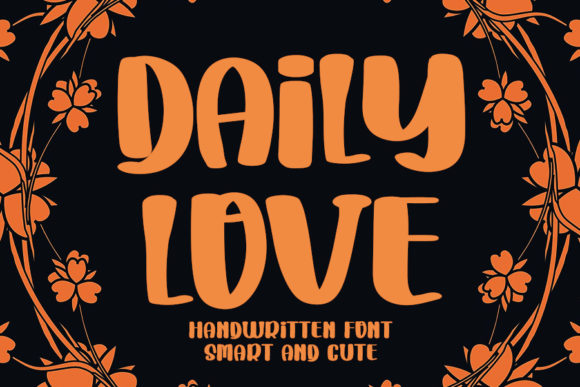
Welcome to the enthralling world of "Daily Love Font," where creativity blossoms and ideas take flight. This remarkable display font, meticulously crafted by FreshTypeINK, not only captivates the eyes but also unleashes a torrent of emotions, leaving a lasting impression on your audience.
Immerse yourself in a world of possibilities with Daily Love Font, the ultimate creative companion for your business endeavors. This font exudes elegance and sophistication, making it the perfect choice for creating professional presentations, eye-catching brochures, and impactful marketing materials that demand attention.
Unleash your imagination and embark on a journey of self-expression with Daily Love Font. Design captivating logos and branding elements that reflect the true essence of your business. Let your website radiate warmth and charm with typography that resonates with your audience, leaving a lasting impression that sets you apart from the competition.
But Daily Love Font's allure extends far beyond the realm of business. It's a font that speaks to the heart, making it ideal for crafting personal invitations, heartfelt greeting cards, and touching love letters that convey your deepest emotions in a way that words alone cannot capture.
Picture this: A heartfelt invitation adorned with Daily Love Font's gentle curves and playful shapes, promising an unforgettable event filled with joy and laughter. Or, imagine a wedding invitation that exudes elegance and romance, setting the tone for a day filled with love and happiness.
With Daily Love Font, your creative potential knows no bounds. Whether you're a seasoned designer, a budding entrepreneur, or simply someone who appreciates the beauty of typography, this font will elevate your projects to new heights. Its versatility and charm make it a must-have in any font collection, ready to transform your ideas into breathtaking realities.
So, embrace the magic of Daily Love Font today, and let your creativity soar. Experience the joy of creating designs that resonate, connect, and inspire. With Daily Love Font, your creations will bloom with beauty, leaving an indelible mark on the world.